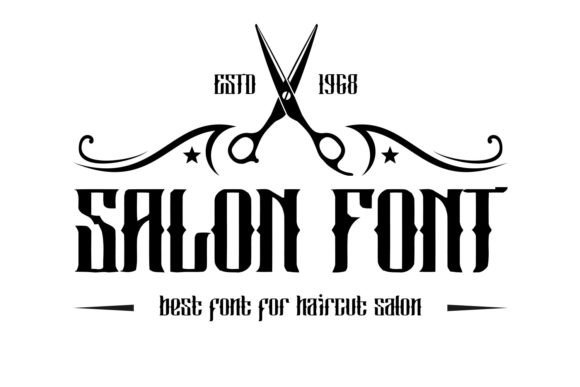
Salon Font: Elevate Your Design with a Vintage Twist
In the realm of typography, few fonts manage to evoke a sense of nostalgia and charm as effectively as the Salon Font. This vintage typeface is a treasure trove for designers seeking to infuse their projects with an old-rustic allure. Whether you’re aiming for a vintage, retro, wild, or organic style, the Salon Font collection is a versatile tool that can elevate your design to new heights.
The Essence of Salon Font
Salon Font is more than just a typeface; it’s a statement. It was crafted with the intention of being used in projects that require a touch of classic elegance and rustic charm. This font is perfect for product logos such as pomade, coffee, barber shop labels, or packaging. Its unique character can instantly transport your brand’s identity to a bygone era, making it memorable and distinctive.
Versatility at Its Best
One of the standout features of Salon Font is its versatility. It’s not limited to logos or branding; its applications are vast and varied. Use it for:
- Branding: Give your brand a vintage makeover that sets it apart from the modern, sleek designs that flood the market.
- Logo Designs: Create logotypes that are both memorable and reflective of your brand’s personality.
- Lettering: Add a personal touch to your lettering projects with a font that exudes warmth and character.
- Logotypes: Design logotypes that tell a story, evoking a sense of history and tradition.
- Crafts: Perfect for craft-related projects, adding a handmade, personal touch.
- Posters: Create posters that stand out with a font that has personality and charm.
The Design Process
The creation of Salon Font involved meticulous attention to detail to ensure it captures the essence of vintage typography while remaining legible and versatile. Designers and typographers worked tirelessly to refine the font, ensuring that it meets the needs of modern designers who are looking for that perfect vintage touch.
The design process included:
- Research: A deep dive into vintage typography to understand the characteristics that make a font timeless.
- Sketching: Hand-sketching the characters to ensure each letter has a unique personality.
- Refinement: Digital refinement to ensure the font is versatile and works well across various mediums.
Why Choose Salon Font?
With so many fonts available, why choose Salon Font for your next project? Here are a few compelling reasons:
- Uniqueness: Salon Font offers a unique blend of vintage charm and rustic appeal that is hard to find.
- Versatility: Its wide range of applications makes it a valuable addition to any designer’s toolkit.
- Easy to Use: Designed with the user in mind, Salon Font is easy to integrate into your projects.
Tips for Using Salon Font Effectively
To get the most out of Salon Font, consider the following tips:
- Pair it Wisely: Combine Salon Font with modern fonts for a striking contrast.
- Experiment with Weights: If available, experiment with different weights to add depth to your design.
- Consider Context: Think about where and how your design will be used to ensure the font fits the context.
Salon Font is more than just a typeface; it’s a gateway to creating designs that resonate with a sense of history and nostalgia. Its versatility, combined with its unique vintage charm, makes it an invaluable tool for designers looking to add depth and character to their projects. Whether you’re working on a logo, branding, or any other design project, Salon Font is sure to leave a lasting impression.
- What is Salon Font? Salon Font is a vintage typeface designed to add an old-rustic charm to design projects.
- What type of projects is Salon Font best suited for? Salon Font is versatile and can be used for a variety of projects including logos, branding, packaging, posters, and more.